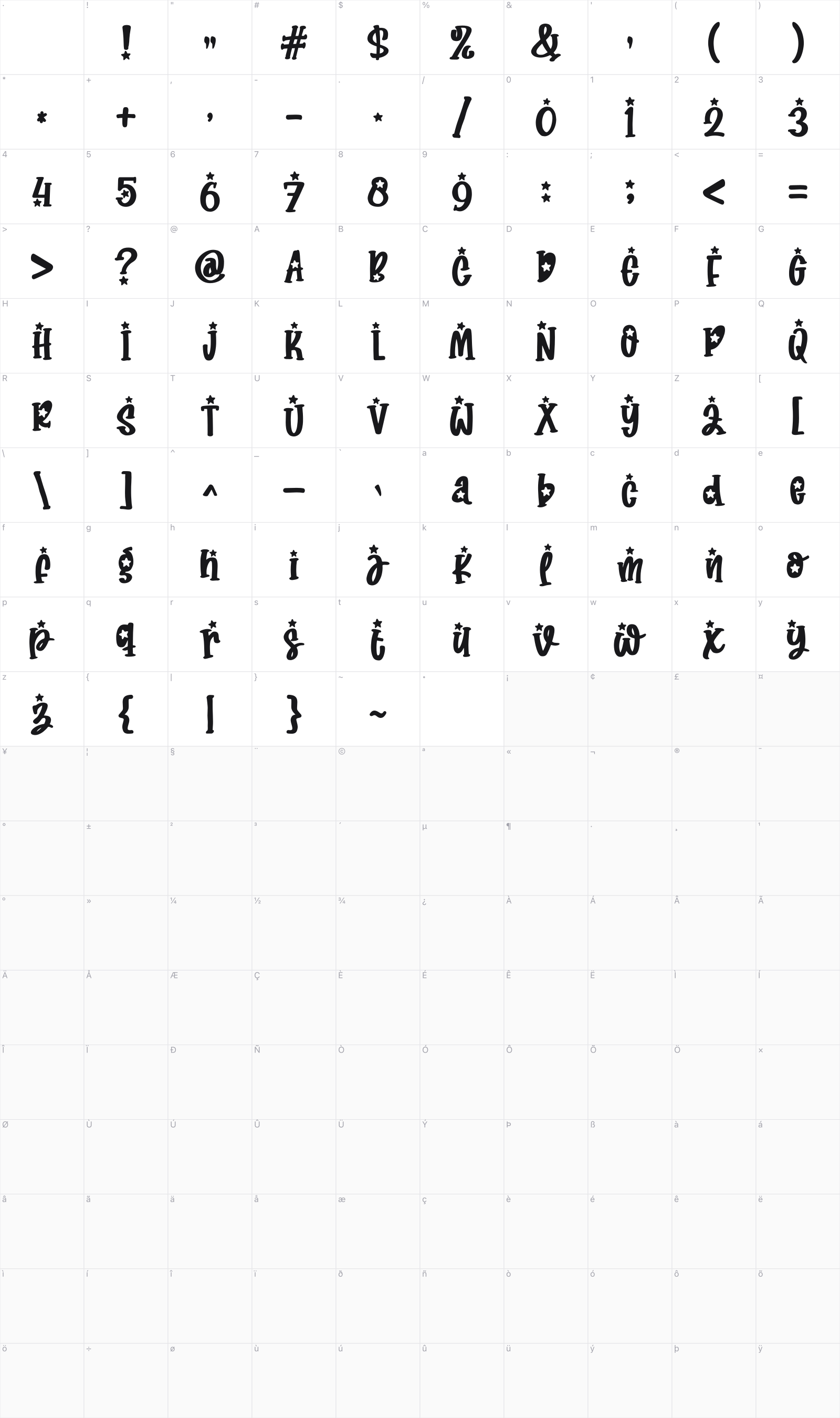
Glowing Star
Glowing Star is a chunky, star-studded display font from Indonesian designer Orenari with a bold, hand-lettered bounce. Tiny stars float above select characters, weaving a playful, magical motif directly into the type. It reads instantly as cheerful and youthful, making it a natural choice for children's content, party materials, and fun branding.